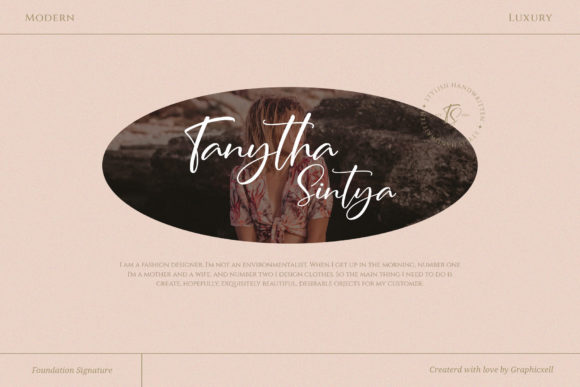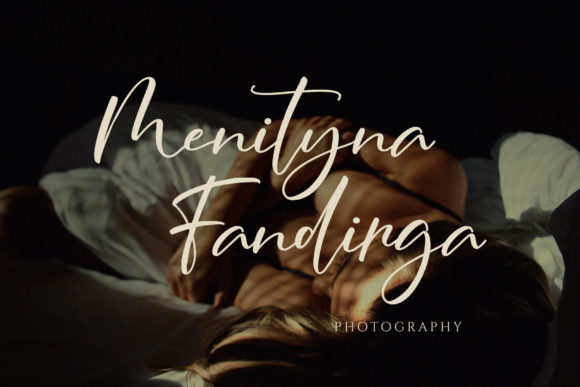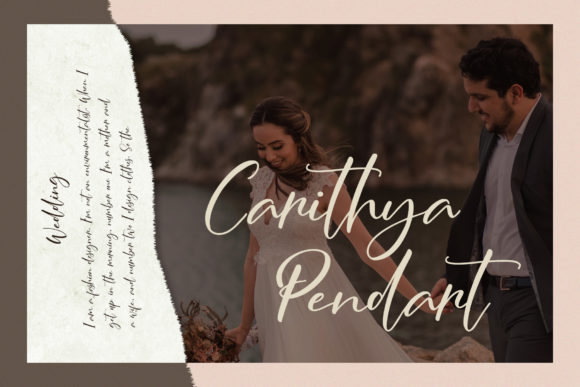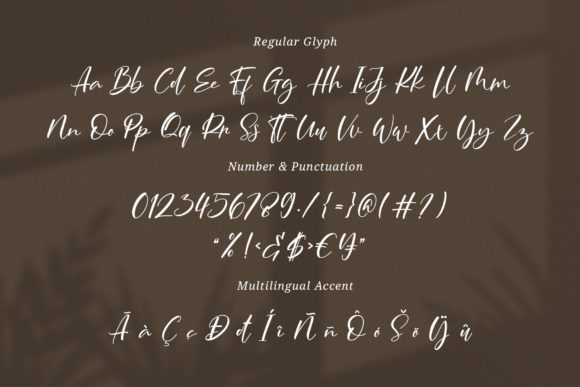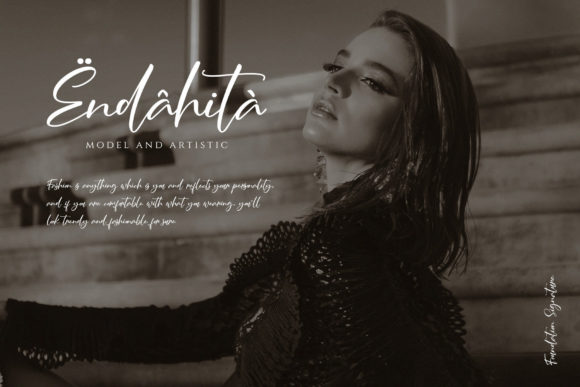
The Elegance of Foundation Font: A Designer’s Delight
I’ll never forget the time I was working on a wedding invitation project, and my client asked me to create something that exuded elegance and class. I scoured the internet for the perfect font, and that’s when I stumbled upon Foundation – a flowing and romantic script font that stole my heart. In this article, I’ll share my experience with Foundation, its features, and how to make the most of it in your designs.
A Personal Review of Foundation Font
As a designer, I’m always on the lookout for fonts that can elevate my work. Here’s what I love about Foundation:
- ✨ Elegant and flowing script style that’s perfect for wedding invitations, stationery, and social media posts
- 💫 Beautifully crafted with intricate details and swashes
- 🎨 Versatile and can be used for a variety of design projects, from digital to print
While Foundation is an amazing font, it’s not without its quirks. Here are a few things to keep in mind:
- 🤔 Some characters may not work well in all contexts, so it’s essential to test the font thoroughly
- ⚠️ The font’s intricate details may not render well at very small sizes or on low-resolution screens
How to Use Foundation Font: A Practical Guide
- Experiment with the font’s OpenType features, such as swashes and stylistic alternates, to add some flair to your design
The Story Behind Foundation Font
Foundation was designed by a team of typographers who wanted to create a font that exuded elegance and class. Inspired by traditional calligraphy, they crafted a font that’s both beautiful and legible. With its intricate details and swashes, Foundation is perfect for designers who want to add a touch of sophistication to their work.
| Font Name | Foundation Font |
| Author | Graphicxell |
Here are some frequently asked questions about Foundation font:
- Q: What type of projects is Foundation best suited for?
- A: Foundation is perfect for wedding invitations, stationery, social media posts, and other design projects that require an elegant and flowing script style.
- Q: Is Foundation a difficult font to read?
- A: No, Foundation is a highly legible font, even at small font sizes. However, its intricate details may not render well at very small sizes or on low-resolution screens.